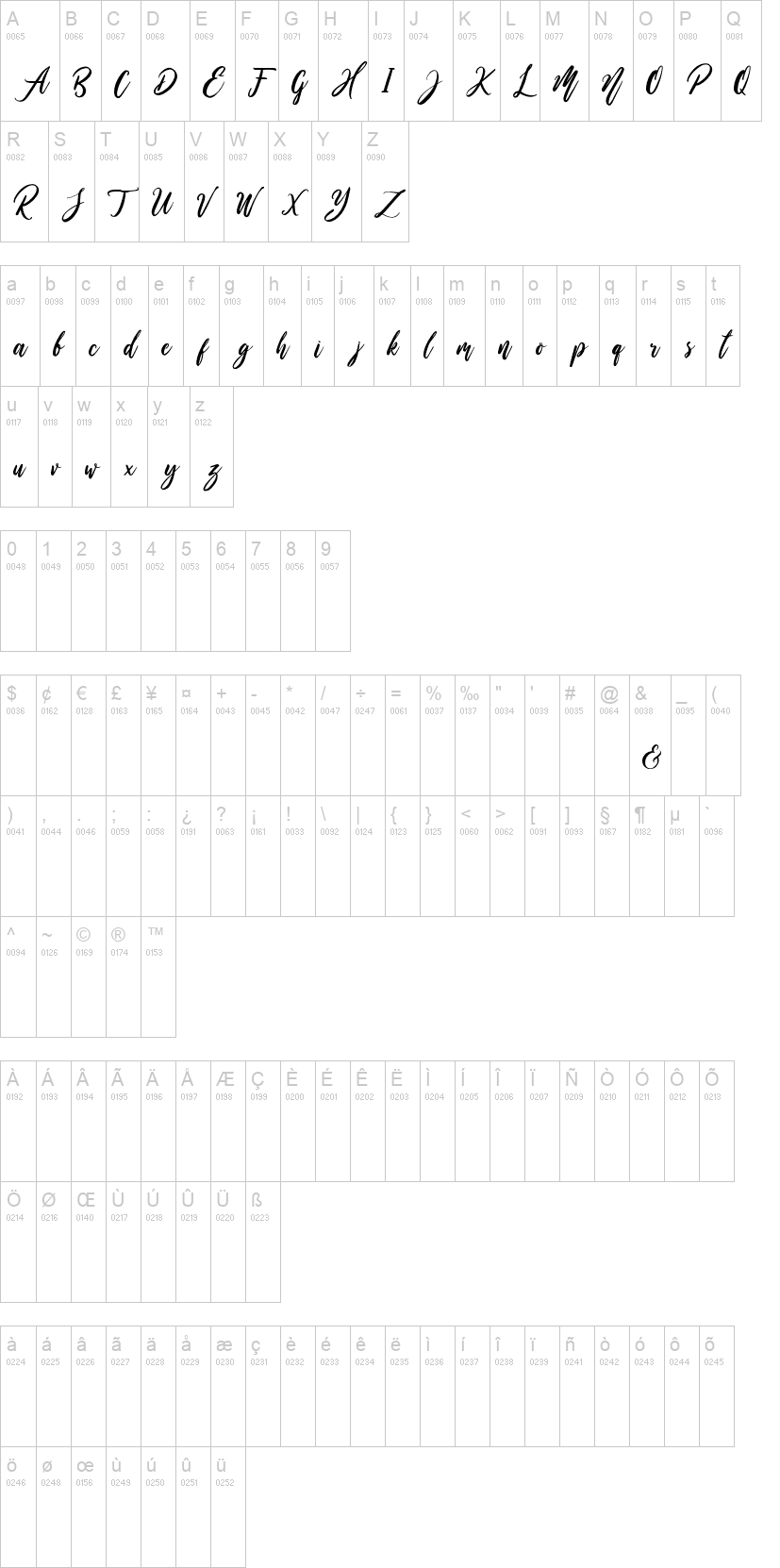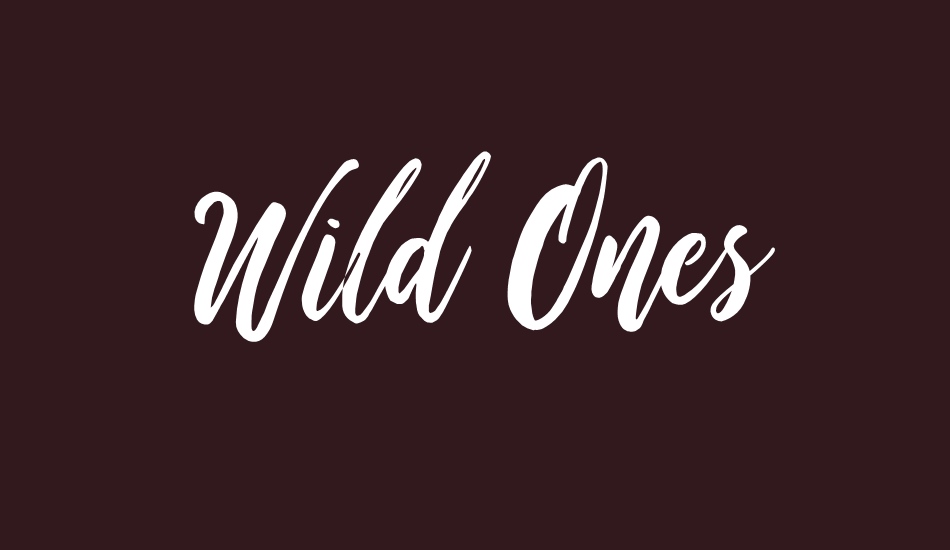
Wild Ones Font
Wild Ones Font - Use wild ones for your creative projects; Web wild ones is a manualy handbrush script font inspired by modern calligraphy style. It's makes the font be very fun, playfull and.
Web wild ones is a manualy handbrush script font inspired by modern calligraphy style. Use wild ones for your creative projects; It's makes the font be very fun, playfull and.
Web wild ones is a manualy handbrush script font inspired by modern calligraphy style. It's makes the font be very fun, playfull and. Use wild ones for your creative projects;
Wild Ones Script Font
It's makes the font be very fun, playfull and. Web wild ones is a manualy handbrush script font inspired by modern calligraphy style. Use wild ones for your creative projects;
It's makes the font be very fun, playfull and. Use wild ones for your creative projects; Web wild ones is a manualy handbrush script font inspired by modern calligraphy style.
Wild Ones Font
Web wild ones is a manualy handbrush script font inspired by modern calligraphy style. Use wild ones for your creative projects; It's makes the font be very fun, playfull and.
Web wild ones is a manualy handbrush script font inspired by modern calligraphy style. It's makes the font be very fun, playfull and. Use wild ones for your creative projects;
It's makes the font be very fun, playfull and. Use wild ones for your creative projects; Web wild ones is a manualy handbrush script font inspired by modern calligraphy style.
It's makes the font be very fun, playfull and. Web wild ones is a manualy handbrush script font inspired by modern calligraphy style. Use wild ones for your creative projects;
Wild Ones Script Font
Web wild ones is a manualy handbrush script font inspired by modern calligraphy style. Use wild ones for your creative projects; It's makes the font be very fun, playfull and.
It's makes the font be very fun, playfull and. Web wild ones is a manualy handbrush script font inspired by modern calligraphy style. Use wild ones for your creative projects;
Use wild ones for your creative projects; Web wild ones is a manualy handbrush script font inspired by modern calligraphy style. It's makes the font be very fun, playfull and.
Use Wild Ones For Your Creative Projects;
It's makes the font be very fun, playfull and. Web wild ones is a manualy handbrush script font inspired by modern calligraphy style.